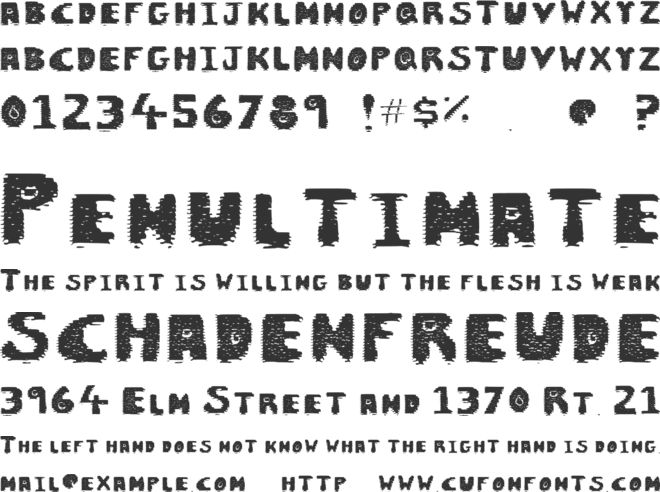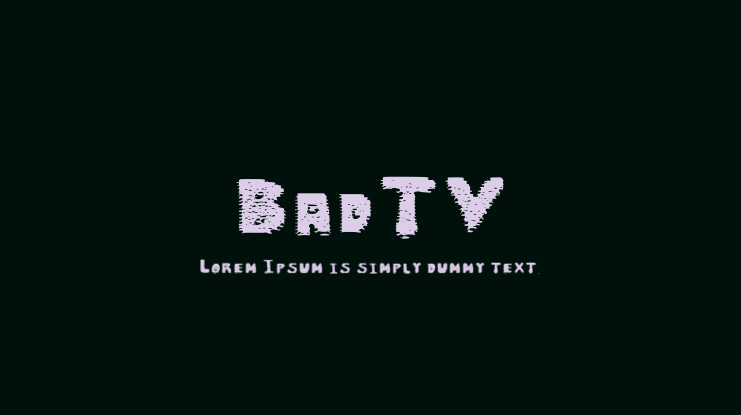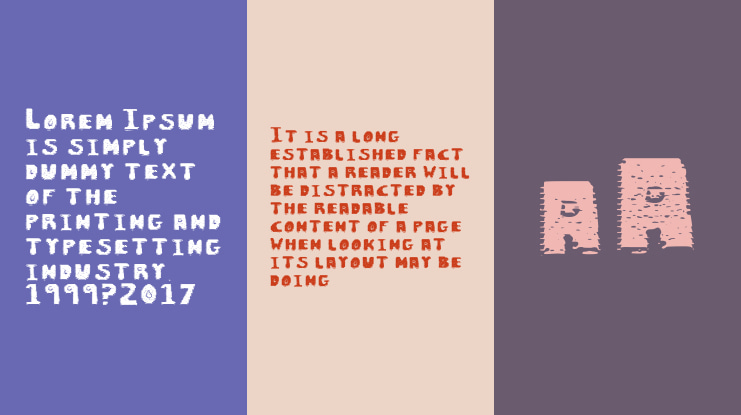
BadTV Font
Nothing on TV? Get creative with this Fuzzy and static stylised font with an rounded, comic book feel. Outline available at the above site.